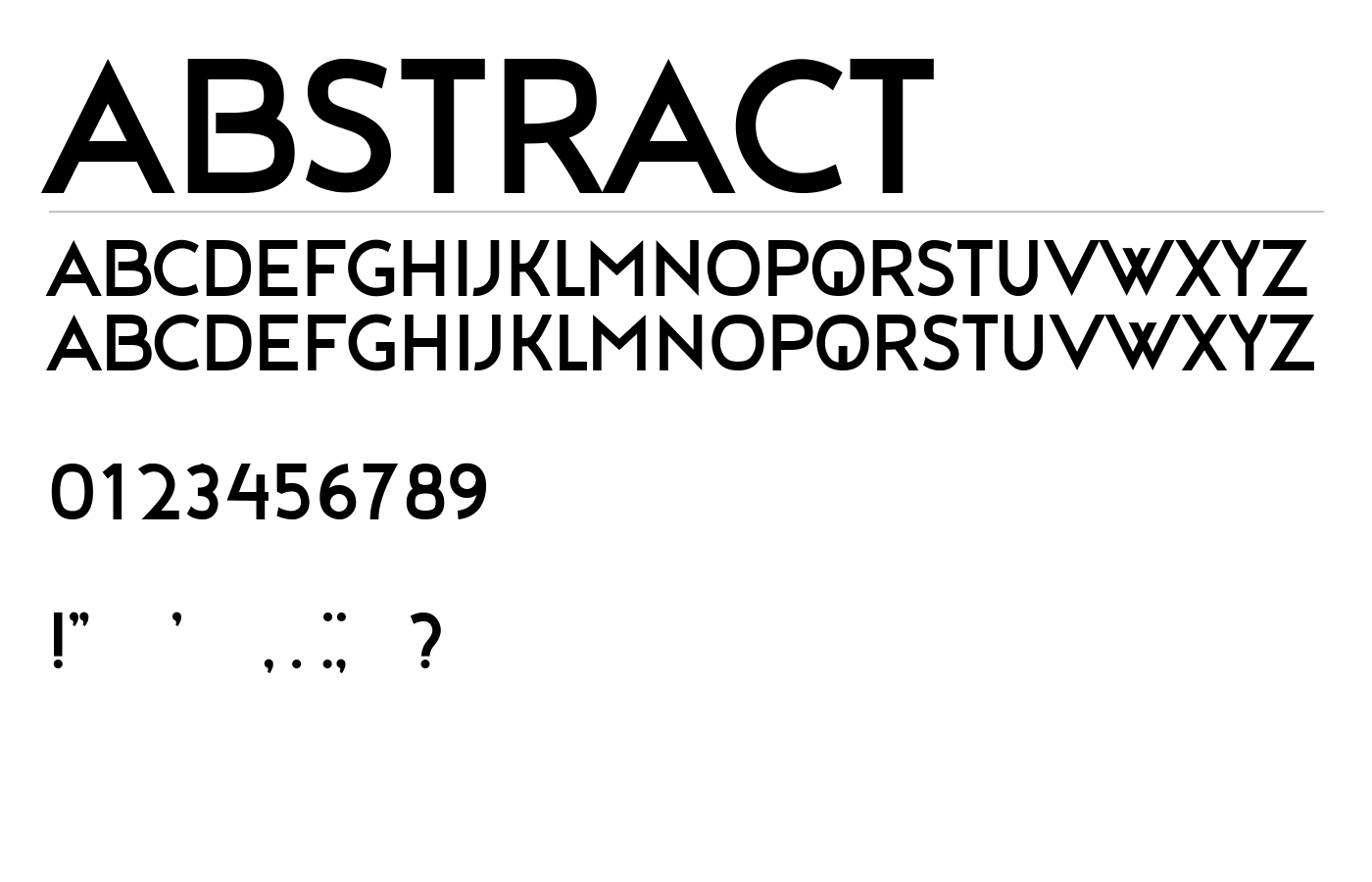
Abstract Font is a modern sans serif typeface characterized by its clean, geometric shapes and sharp angles that create a strong, contemporary feel. With a medium weight and balanced proportion, it offers excellent readability while maintaining a distinctive, architectural style that suits branding, headlines, and editorial design. This font works especially well for tech, design, and fashion projects seeking a sleek, futuristic look.
Abstract Font
About Abstract Font
| Font family | Abstract Font |